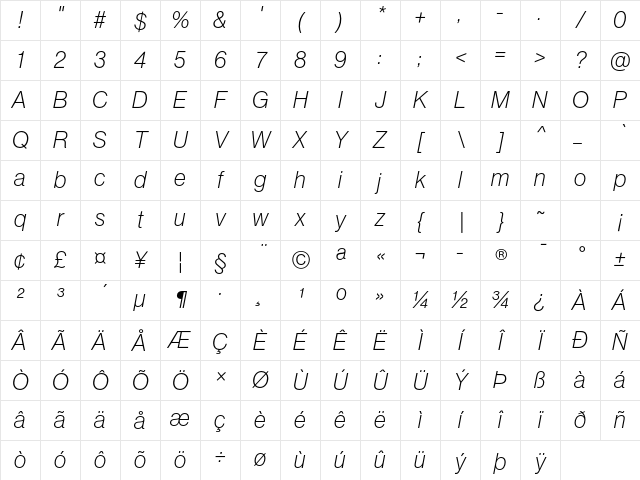
Complete Neue Haas Grotesk D W0436 Italic glyph index. Displaying only characters natively supported by Neue Haas Grotesk D W0436 Italic font.
Neue Haas Grotesk D W0436 takes a clean, functional approach - its unadorned letterforms prioritise legibility and work reliably across screen and print environments. The slanted form adds forward momentum and visual energy.
Font Pairing: Works well alongside a characterful serif or display font that can carry the expressive load while Neue Haas Grotesk D W0436 handles the functional copy.
Pro Tip: Use Neue Haas Grotesk D W0436 for UI labels, navigation, and short-form body copy where clean legibility is the priority.